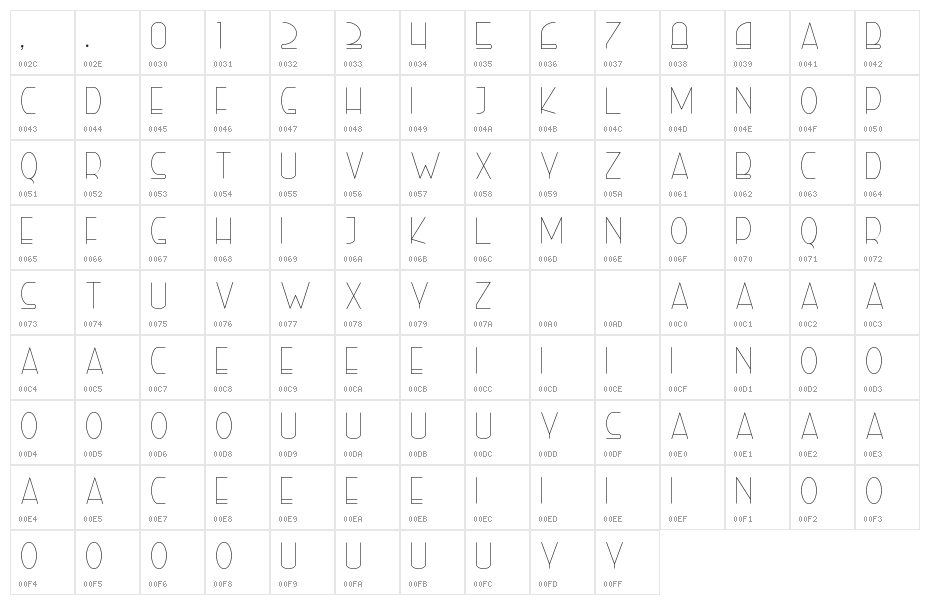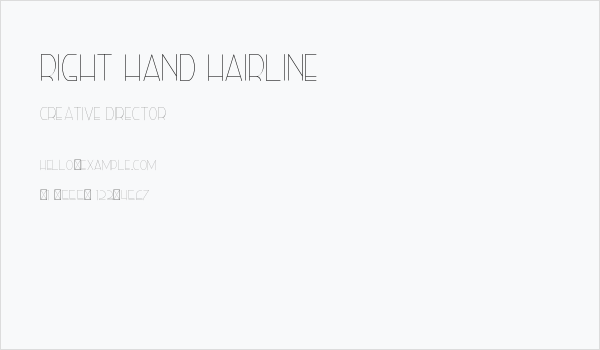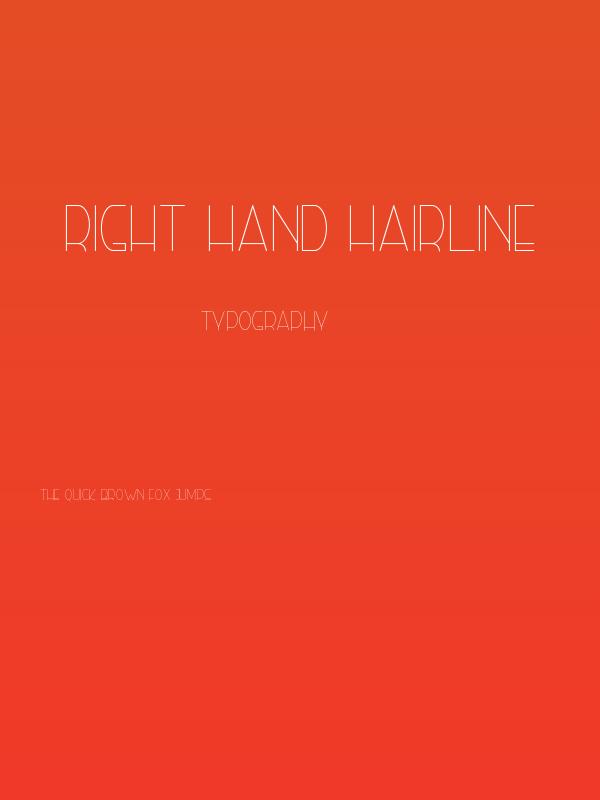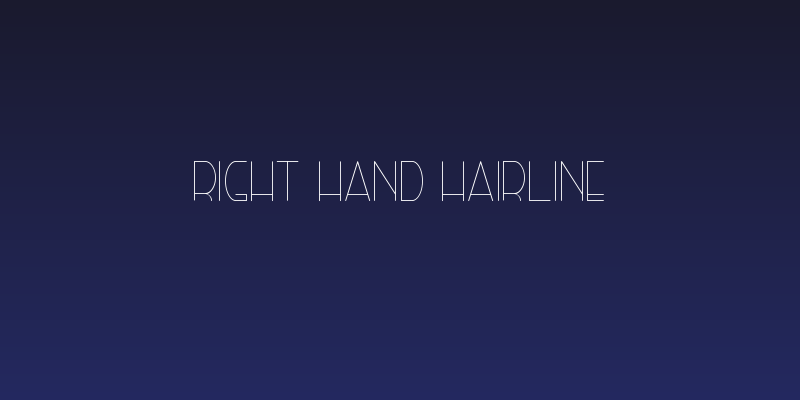
Right Hand Hairline Font
Right Hand Hairline Description
This font features a sleek, geometric design with thin, consistent line weights that create a modern and minimalist aesthetic. The characters are constructed with sharp angles and straight lines, giving them a futuristic and technical appearance. The uppercase letters are uniform in height, while the lowercase letters maintain a similar geometric style. The numerals are distinct and align well with the overall design, featuring rounded edges and straight lines. The special characters complement the set with similar geometric forms. This font's clean and precise lines make it ideal for contemporary design projects.
| Proposed Projects | Ideal for tech branding, modern posters, minimalist websites, and futuristic design themes. |